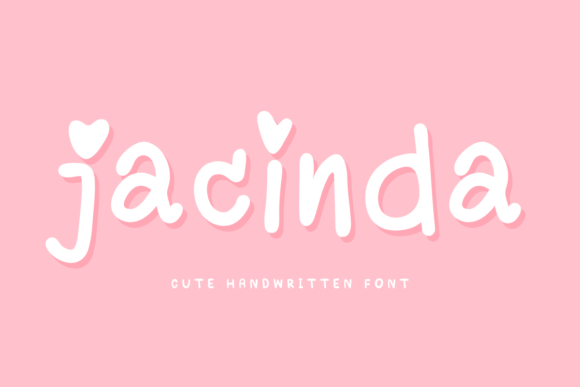
Introducing Jacinda Font - A Whimsical Handwritten Delight for Creative Expression!
Enter the world of Jacinda Font, a charming handwritten font that captivates with its playful strokes and enchanting irregularities. Inspired by the beauty of natural handwriting, Jacinda embodies the fluidity and individuality of human touch. Its soft, rounded curves evoke a sense of warmth and comfort, inviting readers into a realm of creativity and self-expression.
With its delightful imperfections, Jacinda Font adds a touch of authenticity and uniqueness to your designs. Whether you're crafting heartfelt quotes, creating whimsical invitations, or designing heartwarming branding materials, Jacinda Font will infuse your projects with a dash of playfulness and charm.
Let your imagination soar as you explore the myriad possibilities that Jacinda Font unlocks. Its versatility extends from personal projects like heartfelt letters and social media posts to professional endeavors such as eye-catching logos and captivating marketing campaigns. The font's warm and inviting nature makes it an ideal choice for projects that aim to connect with audiences on a deeper level.
Unleash the power of Jacinda Font to transform your creative visions into reality. Its intuitive design and effortless flow make it a joy to use, allowing you to effortlessly convey your messages with style and personality. Elevate your designs, capture hearts, and leave a lasting impression with Jacinda Font – your perfect companion for crafting enchanting visual stories.